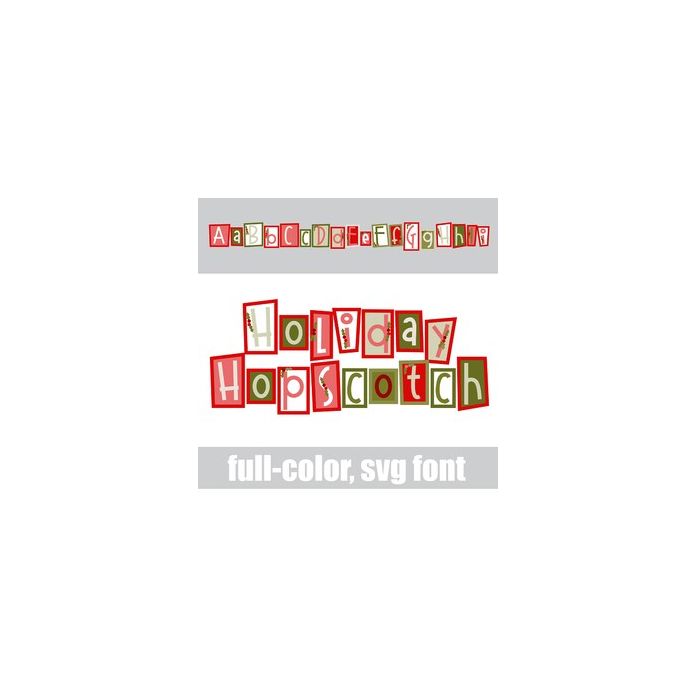
This full-color font features a hopscotch-style letter in a Christmas color palette. There is an alt case w/ additional colors you can access through your system or Silhouette's glyph map.